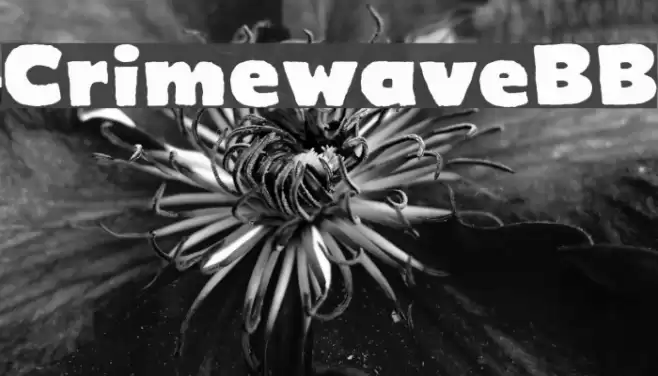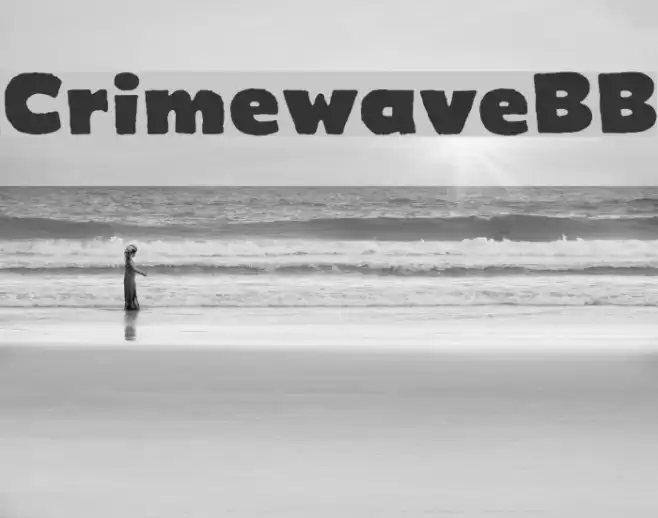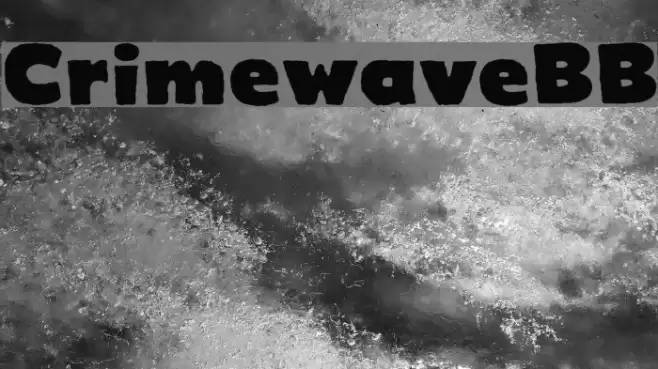
CrimewaveBB Font
CrimewaveBB Description
This font features a bold and rugged style with a distressed, grunge-like appearance. The characters are thick and heavy, giving off a strong, impactful presence. Each letter has an uneven texture, adding to its raw and edgy look. The font is highly legible despite its rough edges, making it suitable for attention-grabbing designs. The uppercase and lowercase letters maintain a consistent weight, while the numbers and special characters follow the same bold aesthetic. This font is ideal for projects that require a dramatic and unconventional typeface.
A bold, rugged font with a distressed, grunge-like appearance from Uncategorized fonts.
- Proposed Projects: Ideal for posters, album covers, video game graphics, and urban-themed designs.